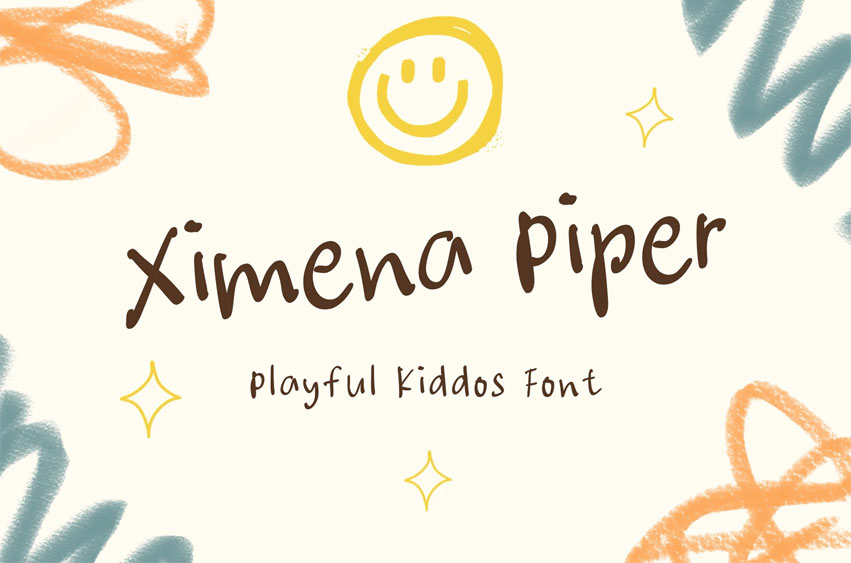
Ximena Piper Font
Ximena Piper Font Playful Kiddos Font – is a Handwritten playful kiddos font with dancing baseline letterforms that adds a fun touch of personality to any design.